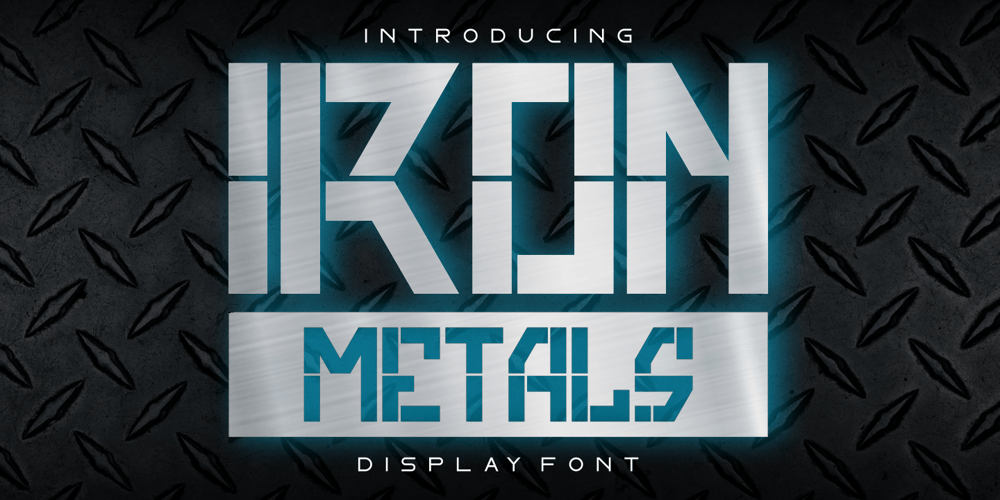
Iron Metals
Iron Metals font
Iron Metals Font Family was designed by Sipanji and published by Sipanji21. Iron Metals contains 1 styles and family package options. “Iron Metal” is a display font with a modern, space, and futuristic theme. This font reflects elements of technology, strength, and resilience often associated with modern and futuristic designs. The use of a space theme can also add elements of exploration and the wonders of the universe to your design. “Iron Metal” is highly suitable for design projects that aim to emphasize these aspects, including space-themed designs, cutting-edge technology, advertisements for futuristic products, and much more. With “Iron Metal,” you can create designs that convey durability, strength, and a challenging vision of the future.